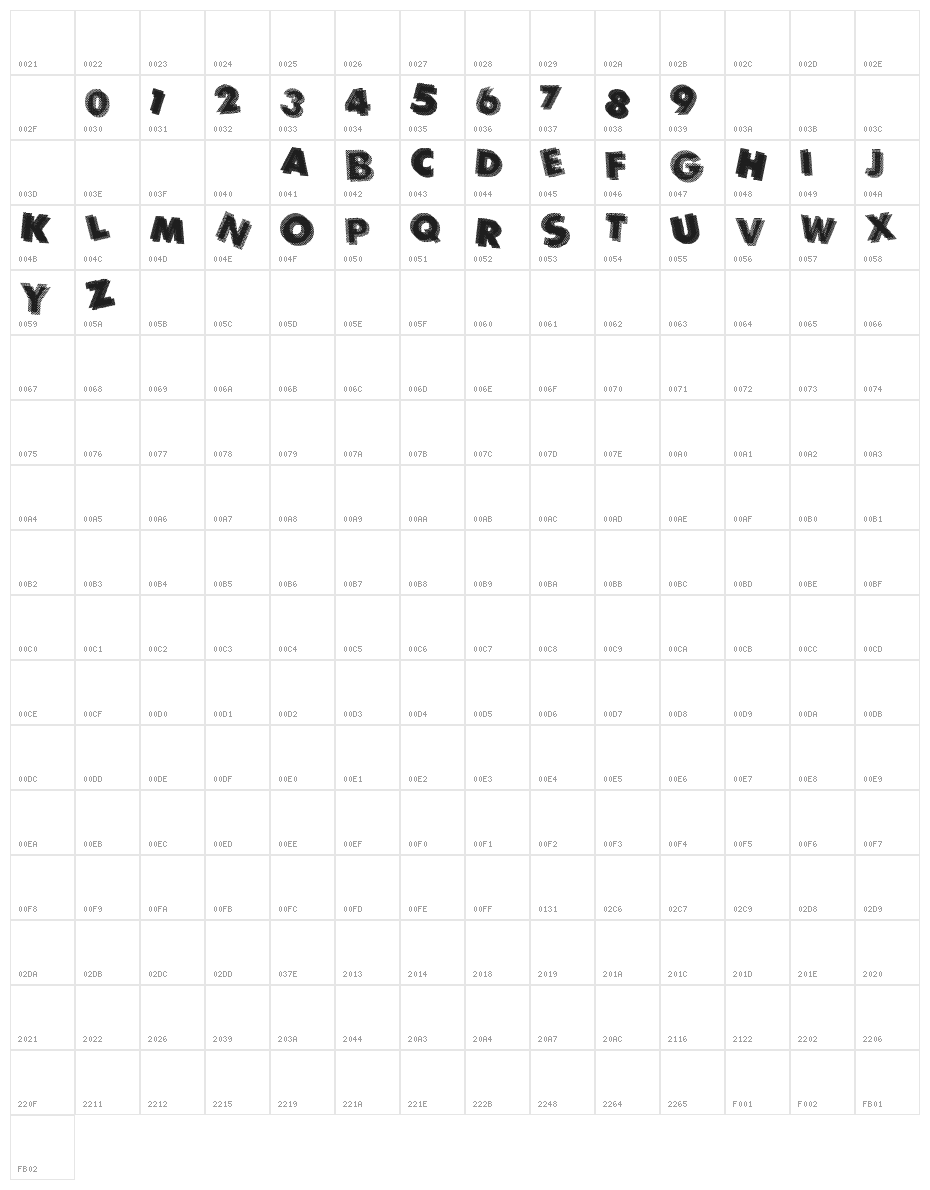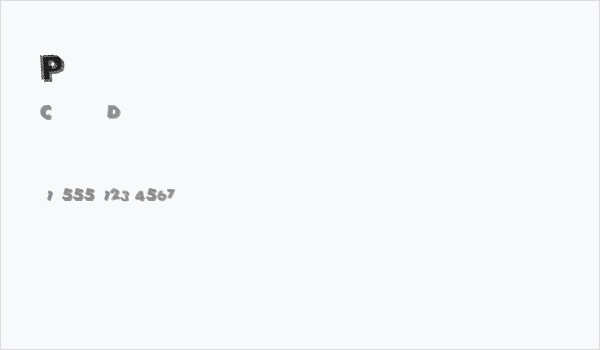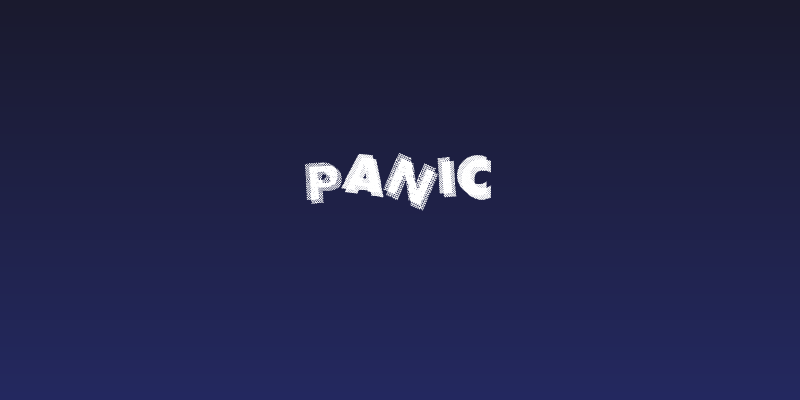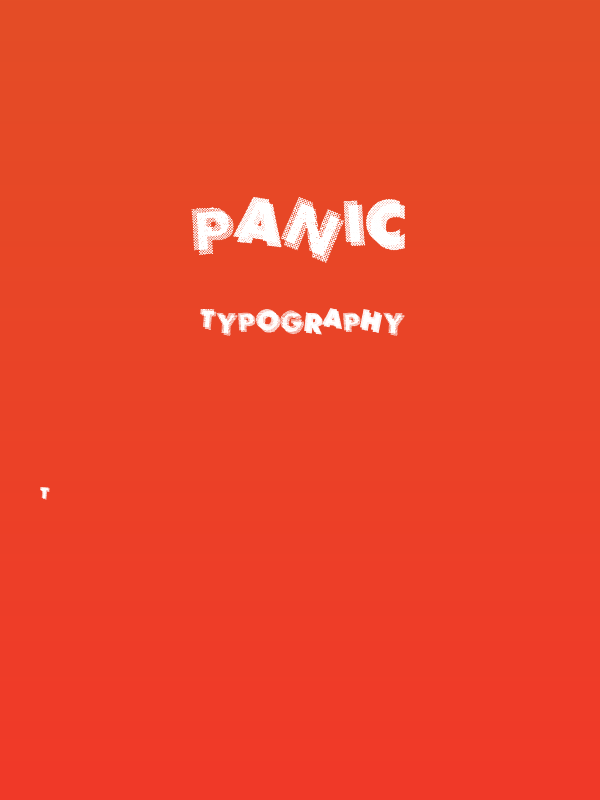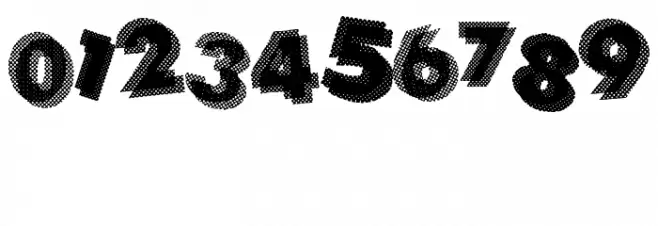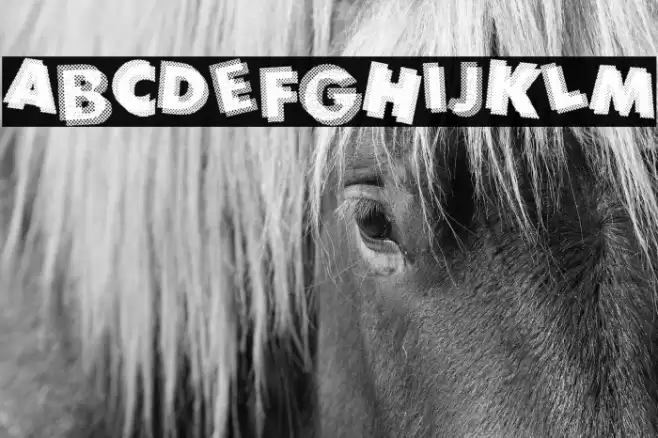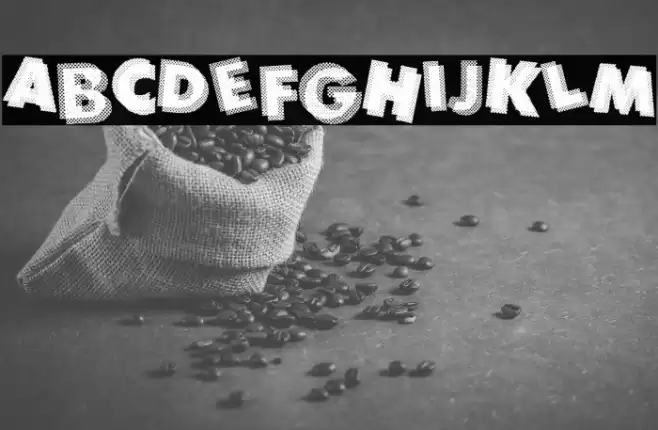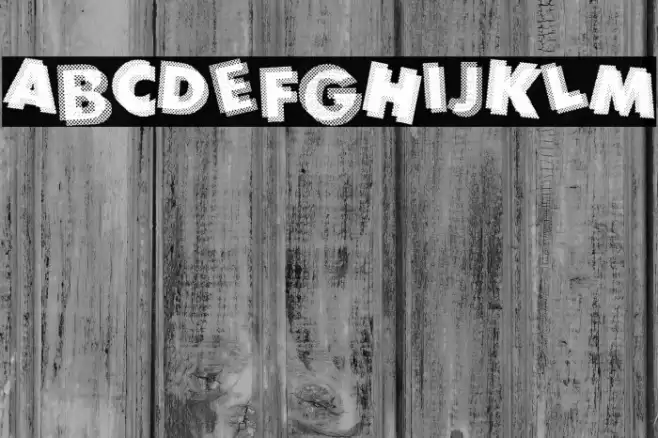
Panic Font
Panic Description
This font features bold, playful characters with a distinct halftone texture, reminiscent of comic book art. The letters are uppercase and exhibit a slightly irregular, hand-drawn style that adds a dynamic and energetic feel. The boldness of the characters is complemented by the dotted pattern, giving it a retro, pop-art aesthetic. The numbers follow the same style, maintaining consistency across the font set. This font is ideal for projects that require a fun, eye-catching display, such as posters, comic book covers, or playful branding materials.
| Overall Style | Retro, Comic, Playful |
| Proposed Projects | Perfect for comic book covers, playful posters, retro-themed designs, and eye-catching branding. |